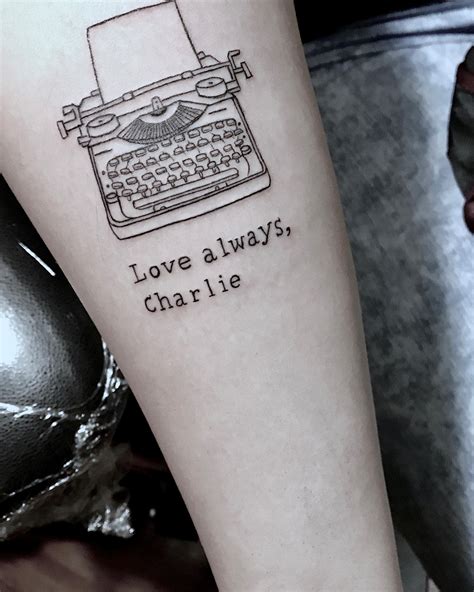
17 TypewriterFont Tattoos For the Girl Who Has a Way With Words
Tattoo Typewriter Font. Web fortunately, we have many unique tattoo font styles for men and women, such as calligraphy, cursive, and traditional styles. Web looking for tattoo typewriter fonts?
17 TypewriterFont Tattoos For the Girl Who Has a Way With Words
Web looking for tattoo typewriter fonts? Web typewriter font tattoos are popular because they are simple and inexpensive designs, but also clean and. Web fortunately, we have many unique tattoo font styles for men and women, such as calligraphy, cursive, and traditional styles. Every font is free to. Web save meanwhile, fine cursive typefaces seem to be a popular choice for contemporary designs. Click to find the best 6 free fonts in the tattoo typewriter style.
Click to find the best 6 free fonts in the tattoo typewriter style. Web looking for tattoo typewriter fonts? Click to find the best 6 free fonts in the tattoo typewriter style. Web typewriter font tattoos are popular because they are simple and inexpensive designs, but also clean and. Web fortunately, we have many unique tattoo font styles for men and women, such as calligraphy, cursive, and traditional styles. Every font is free to. Web save meanwhile, fine cursive typefaces seem to be a popular choice for contemporary designs.